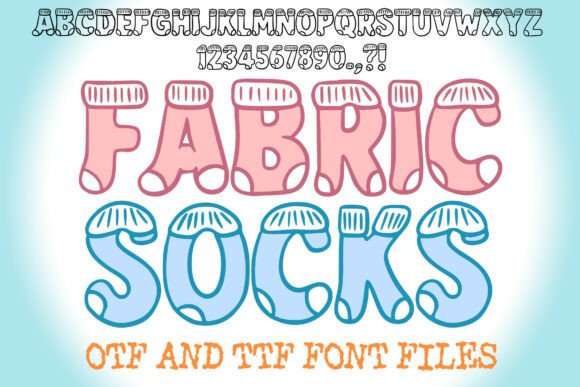
Introducing Fabric Socks Font: The Cozy, Handcrafted Typeface for Your Designs
The Fabric Socks font is a delightful decorative typeface that brings a cozy, handcrafted feel to any project. Crafted with playful charm, this font is perfect for designers looking to add a touch of warmth and comfort to their work. In this article, we’ll explore the unique features of the Fabric Socks font, its uses, and why it’s an excellent choice for a variety of design projects.
The Unique Design of Fabric Socks Font
Each character in the Fabric Socks font is imaginatively designed to resemble a unique knitted sock, complete with charming striped cuffs and subtle patterns that evoke warmth and comfort. The rounded, pillowy shapes give the letters a soft, approachable personality, as if they were lovingly stitched by hand. The font’s distinctive design ensures that titles, headings, and logos stand out with a touch of homemade sweetness and creative flair.
Uses of Fabric Socks Font
The Fabric Socks font’s whimsical and friendly aesthetic makes it a perfect choice for a variety of design projects, including:
- Children’s books: The font’s playful and imaginative design is sure to delight young readers and add a touch of magic to your storybook.
- Craft projects: The font’s handcrafted feel makes it an excellent choice for craft projects, such as knitting patterns, sewing tutorials, or handmade product labels.
- Packaging: Add a touch of warmth and coziness to your product packaging with the Fabric Socks font, perfect for food, home goods, or apparel.
- Branding: Use the Fabric Socks font to create a unique and memorable brand identity for your cozy apparel or home goods business.
Key Features of Fabric Socks Font
The Fabric Socks font comes with a range of features that make it an excellent choice for designers, including:
- Unique and imaginative design
- Rounded, pillowy shapes for a soft and approachable personality
- Charming striped cuffs and subtle patterns
- Distinctive design for titles, headings, and logos
- Whimsical and friendly aesthetic
- Perfect for children’s books, craft projects, packaging, and branding
Why Choose Fabric Socks Font?
The Fabric Socks font is an excellent choice for designers looking to add a touch of warmth and comfort to their work. Its unique design, whimsical aesthetic, and range of uses make it a versatile and valuable addition to any design project.
Here are just a few reasons why you should choose the Fabric Socks font:
- Add a touch of homemade sweetness and creative flair to your designs
- Create a unique and memorable brand identity
- Perfect for a range of design projects, from children’s books to packaging and branding
Here are a few tips for using the Fabric Socks font:
- Experiment with different font sizes and colors to add depth and interest to your designs
- Use the font in combination with other design elements, such as images and graphics
- Don’t be afraid to get creative and try new things – the Fabric Socks font is all about experimentation and playfulness!
The Fabric Socks font is a delightful decorative typeface that brings a cozy, handcrafted feel to any project. Its unique design, whimsical aesthetic, and range of uses make it an excellent choice for designers looking to add a touch of warmth and comfort to their work.
Whether you’re working on a children’s book, craft project, packaging, or branding, the Fabric Socks font is sure to delight. So why not give it a try and see the magic for yourself?